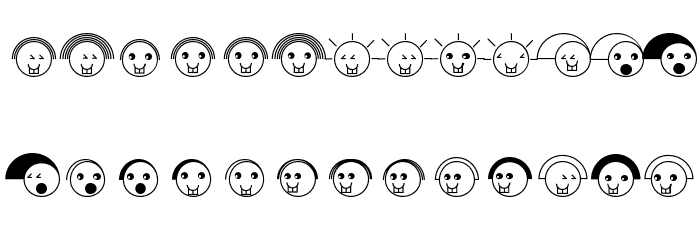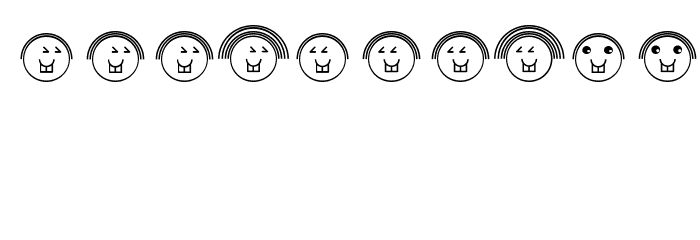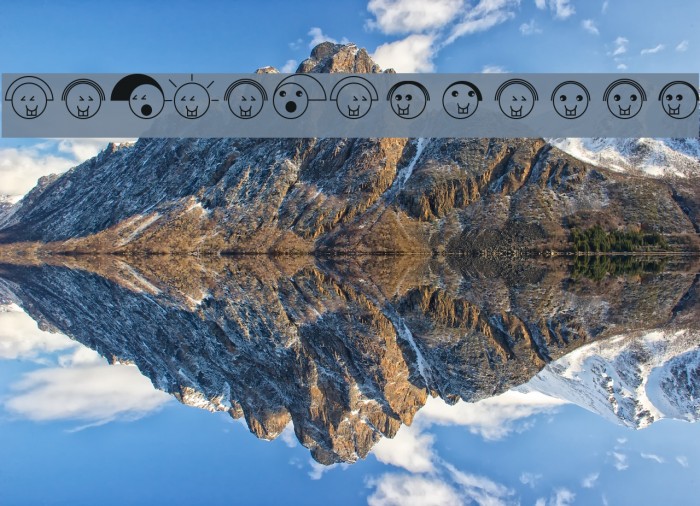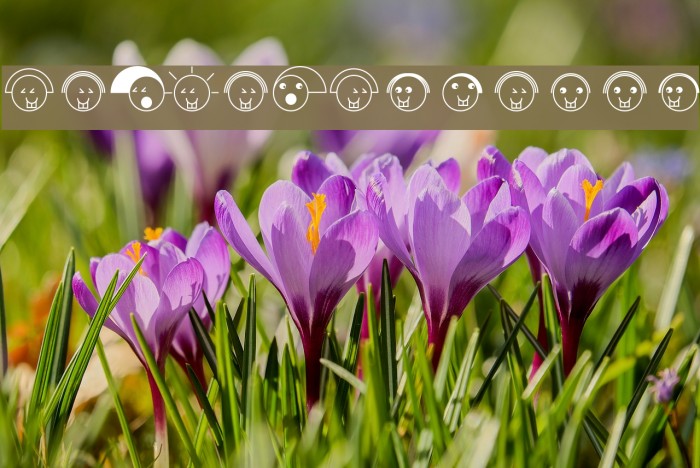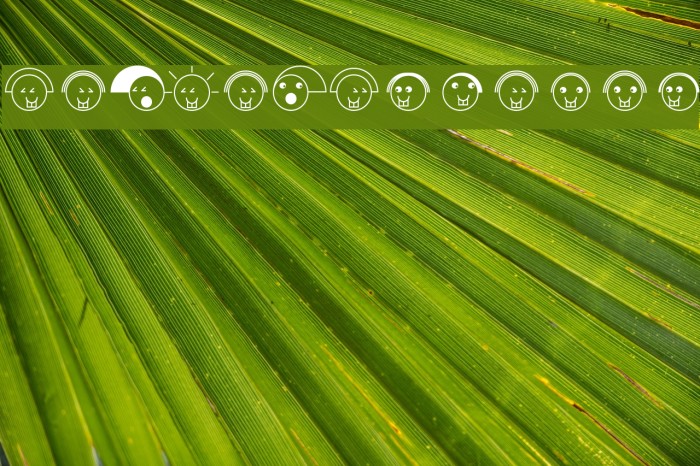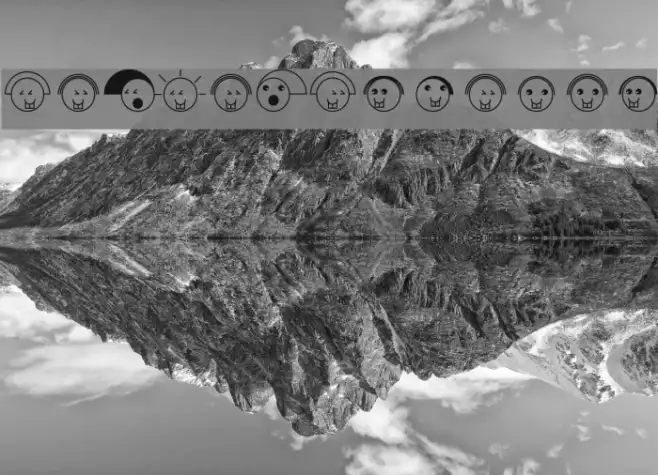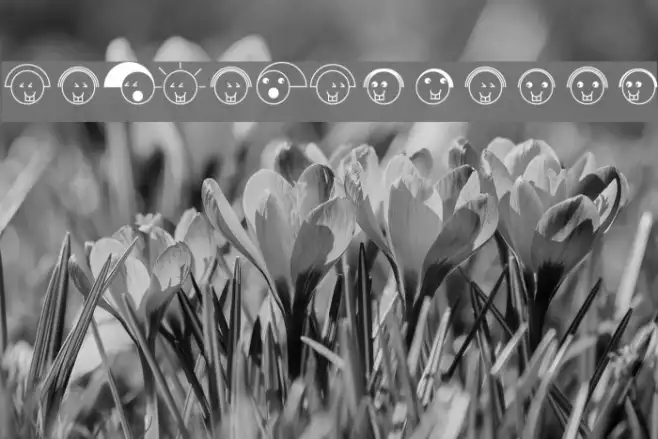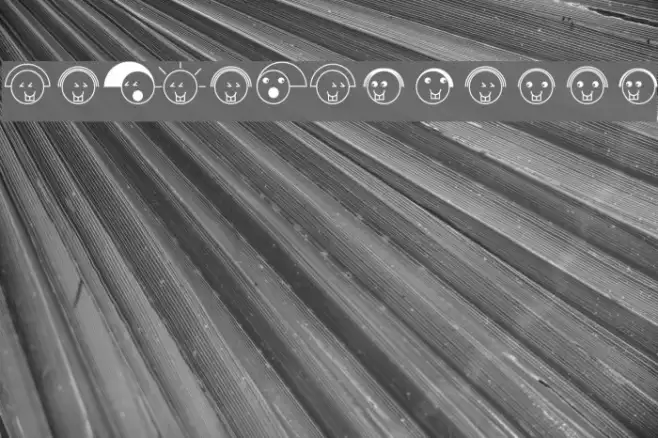
MangaAxtFaces Font
This is a playful and whimsical font composed entirely of cartoon-like faces. Each character is represented by a unique face with varying expressions, hairstyles, and features, creating a lively and engaging visual experience. The font is highly decorative, with each face enclosed in a circular shape, making it ideal for projects that require a fun and lighthearted touch. The expressions range from happy and surprised to mischievous, adding a dynamic and animated feel to the text. The consistent circular form of each character ensures uniformity, while the diverse facial features provide variety and interest.
A playful font featuring cartoon faces with diverse expressions.
- Proposed Projects: Ideal for children's books, playful branding, party invitations, and comic strips.